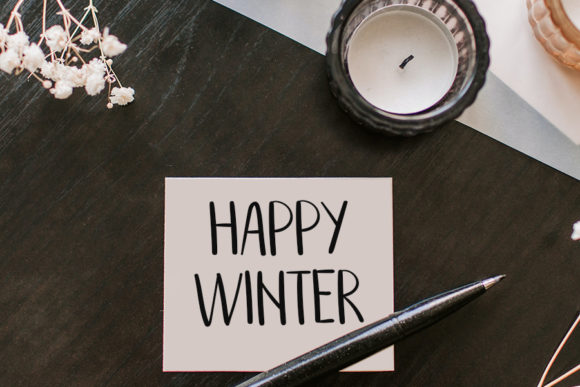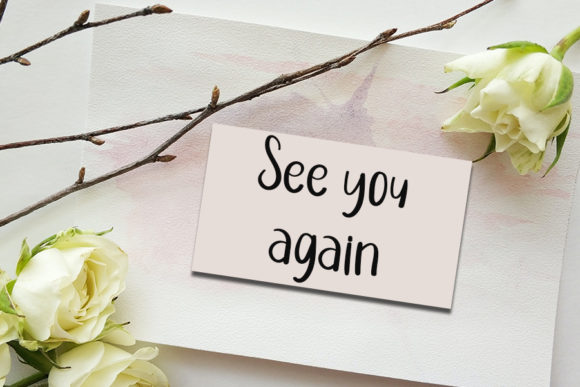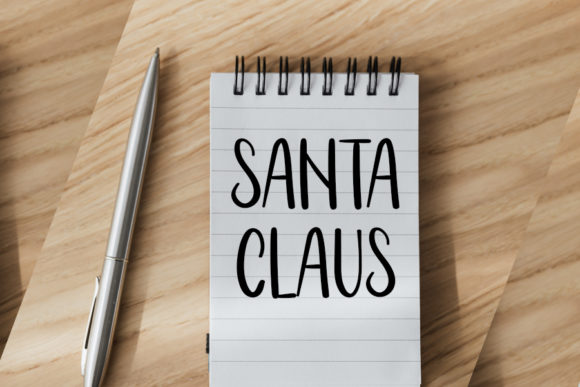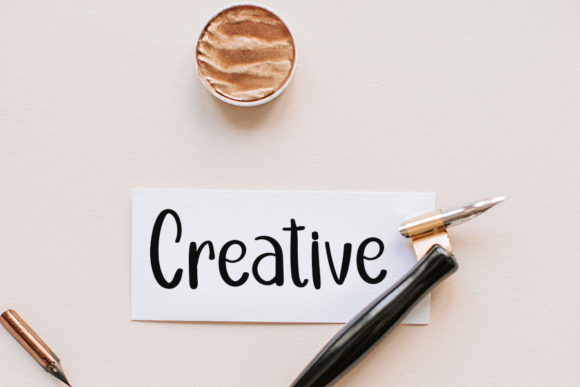
Introduction to December Farmhouse Font
As I sat at my desk, surrounded by scattered papers and creative chaos, I stumbled upon a font that brought my latest project to life. It was the perfect combination of elegance and rustic charm – the December Farmhouse Font. With its thin lettered and neat handwritten design, I knew I had found the perfect design resource for my next creative project.
Whether you’re a seasoned designer or a newcomer to the world of typography, the December Farmhouse Font is a valuable addition to your arsenal. Its high-quality design makes it perfect for a wide range of applications, from logos and headings to signage and labels. Plus, its transparent background makes it easy to overlay on any image or design, giving you complete creative freedom.
Key Features of December Farmhouse Font
- Includes 6 unique font styles, each with a rustic, farmhouse-inspired feel
- Perfect for decorating digital or physical items, such as invitations, signs, and home decor
Honest Review: December Farmhouse Font
What works well with this font is its unique, rustic charm. The December Farmhouse Font is perfect for projects that require a cozy, vintage feel. The font’s intricate details and textured look make it ideal for designs that need a touch of warmth and character. ✨
- Rustic, vintage feel that’s perfect for farmhouse or country-themed designs
- Unique, intricate details that add character to your designs
However, there are a few limitations to consider. The font’s transparency is a bit inconsistent, which can make it difficult to use with certain background images. Additionally, the font may not be suitable for projects that require a clean, modern look. ⚠️
Overall, I’m impressed with the December Farmhouse Font. While it may not be perfect, its unique charm and free download make it a valuable resource for designers working on creative projects. If you’re looking for a high-quality font that can add some personality to your designs, the December Farmhouse Font is definitely worth checking out.